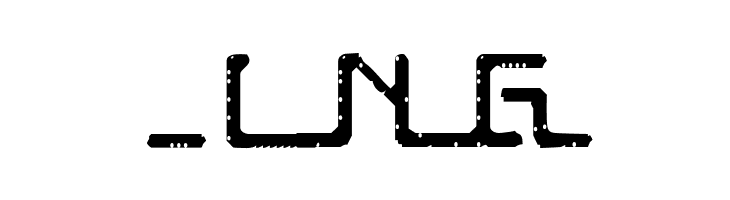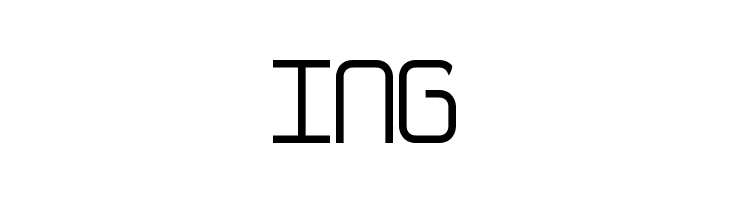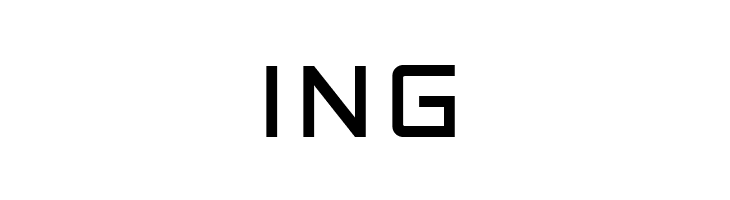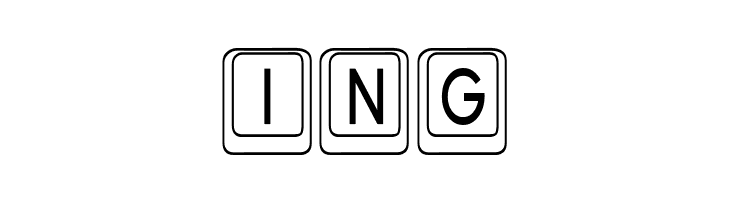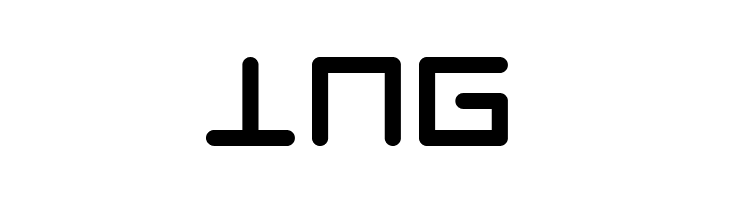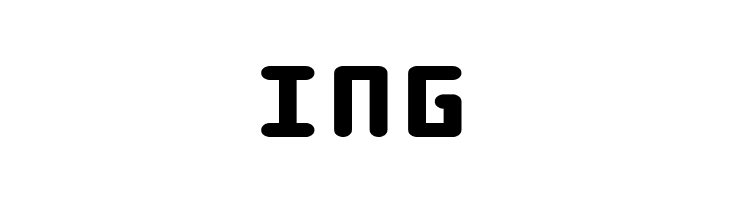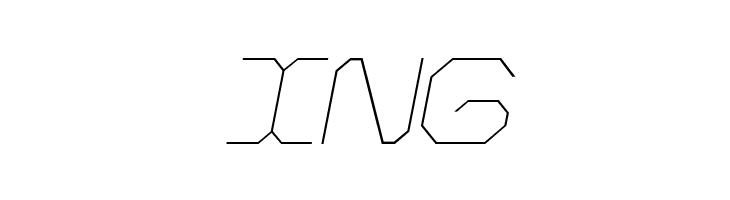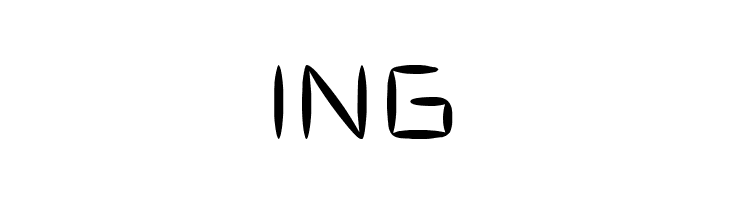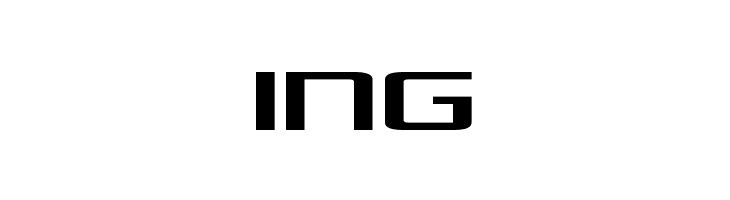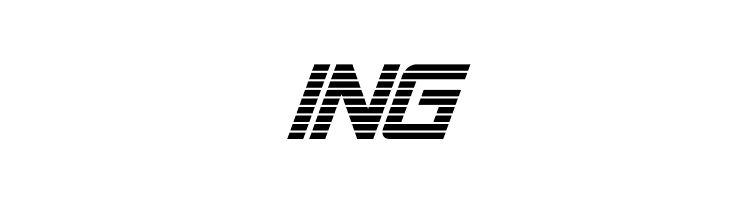
A futuristic, monospaced font with a digital, circuit-like design.
A modern, geometric font with thin, uniform lines and a minimalist style.
A modern, geometric font with clean, rounded edges and uniform stroke width.
A modern, geometric font with angular shapes and a futuristic feel.
A modern, geometric font with clean lines and a structured, monospaced appearance.
A modern, geometric font with clean lines and uniform stroke width.
A bold, modern font with rounded edges and geometric structure.
A narrow, modern font with geometric influences and clean lines.
A geometric, angular font with a modern and minimalist design.
A futuristic, pixelated font with a digital, grid-like design.
A futuristic, geometric font with sharp edges and a modern aesthetic.
A futuristic, italicized font with a striped, dynamic design.
A modern, geometric outline font with clean lines and consistent stroke width.
A digital, futuristic font with a skewed, narrow design and bold geometric shapes.
A modern, geometric font with rounded edges and a bold, uniform stroke.
A futuristic, geometric font with a circuit-like design using dots and lines.
A futuristic, segmented font with a bold, digital aesthetic.
A modern, geometric font with clean lines and uniform thickness.
A modern, geometric font with consistent stroke width and rounded edges.
A modern, striped font with a digital and futuristic design.
A sleek, modern italic font with a futuristic design and consistent stroke thickness.
A modern, geometric sans-serif font with uniform strokes and balanced spacing.
A bold, geometric font with a modern, digital aesthetic, ideal for tech-themed designs.